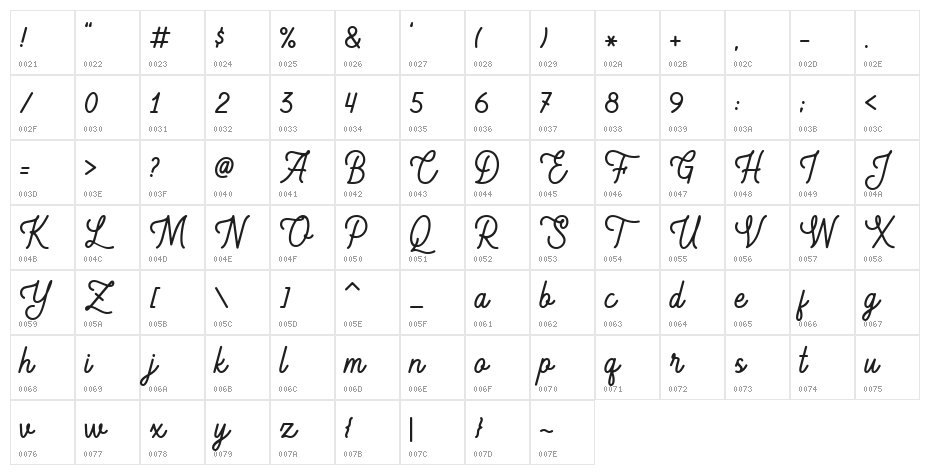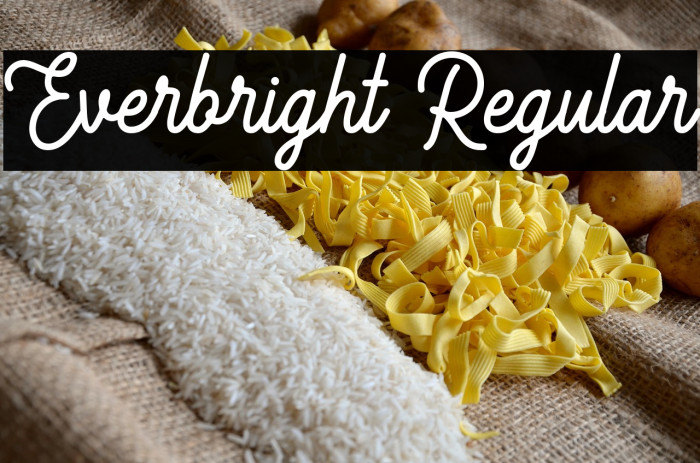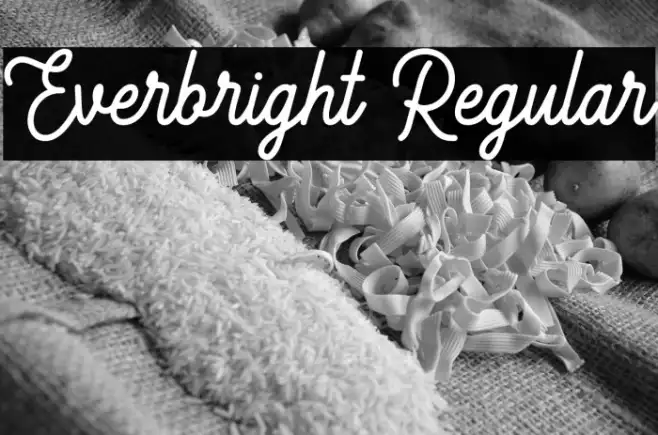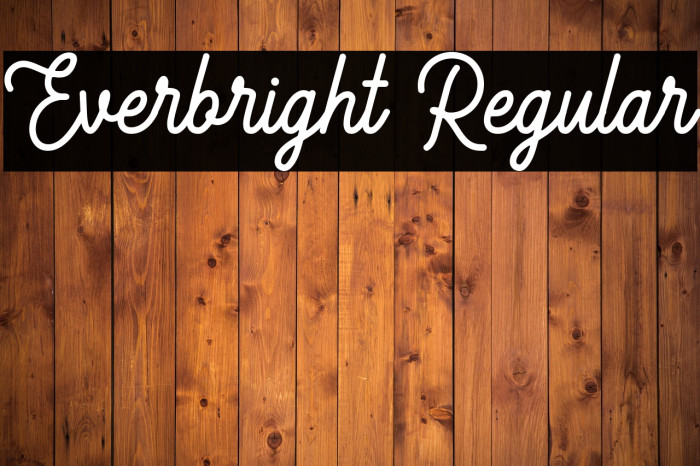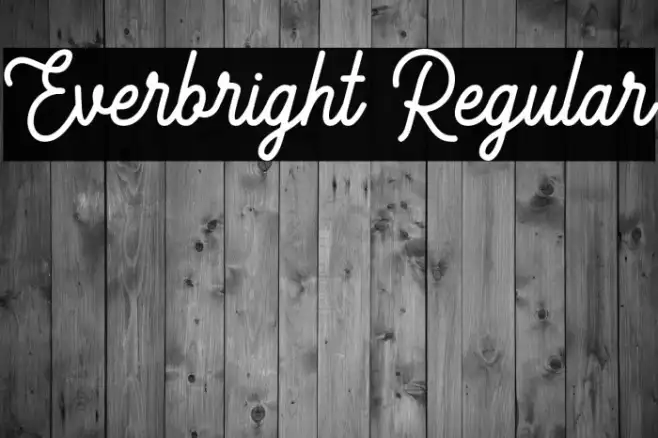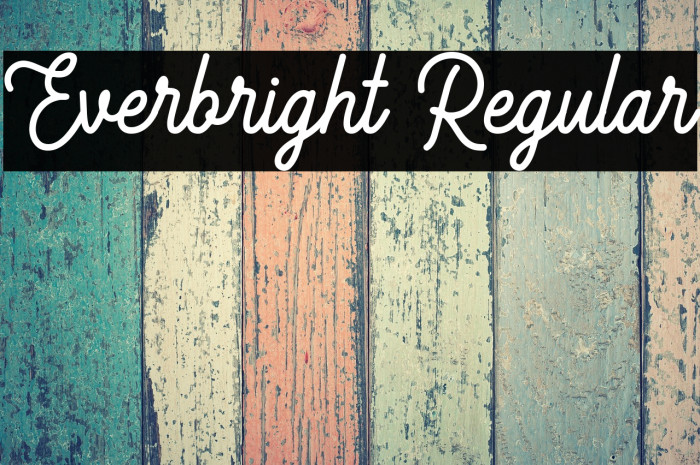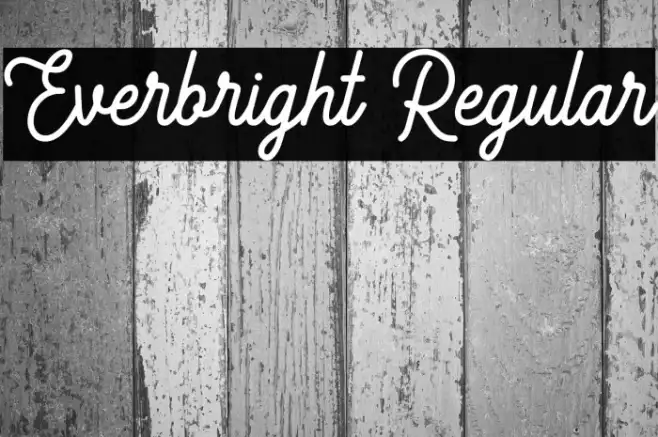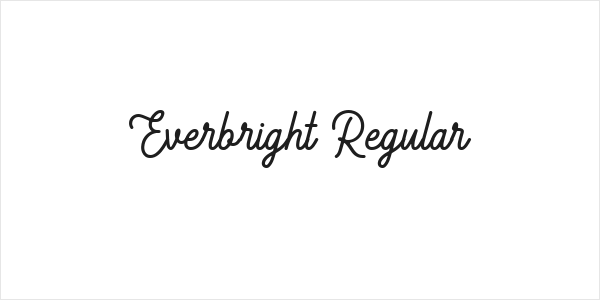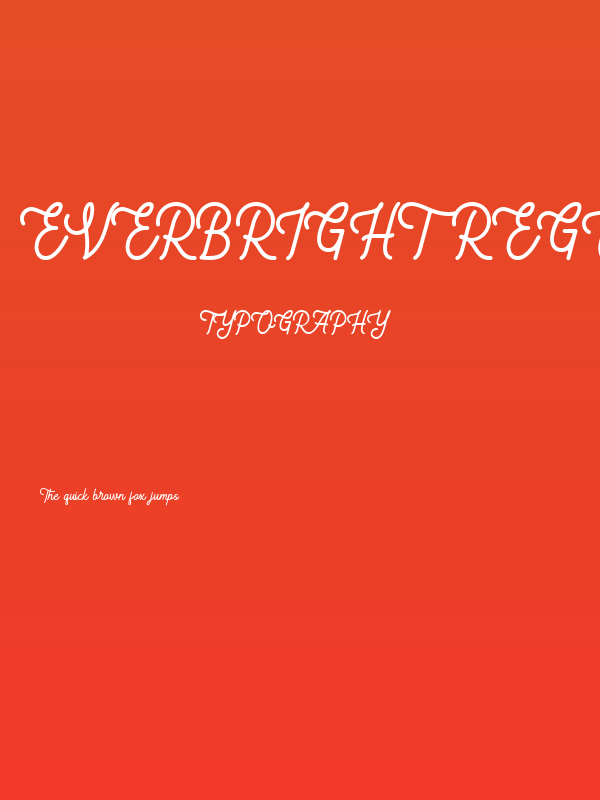
Everbright Regular Font
Everbright Regular Description
This font features a flowing, cursive style that combines elegance with readability. The uppercase letters are gracefully connected, while the lowercase letters maintain a consistent, smooth flow. The numerals are clear and distinct, matching the overall script style. Special characters are designed to complement the font's aesthetic, making it suitable for decorative purposes. The font's strokes are moderately thick, providing a balanced contrast that enhances its legibility without sacrificing its decorative appeal.
| Proposed Projects | Ideal for wedding invitations, greeting cards, branding, and logo design where a touch of elegance is desired. |